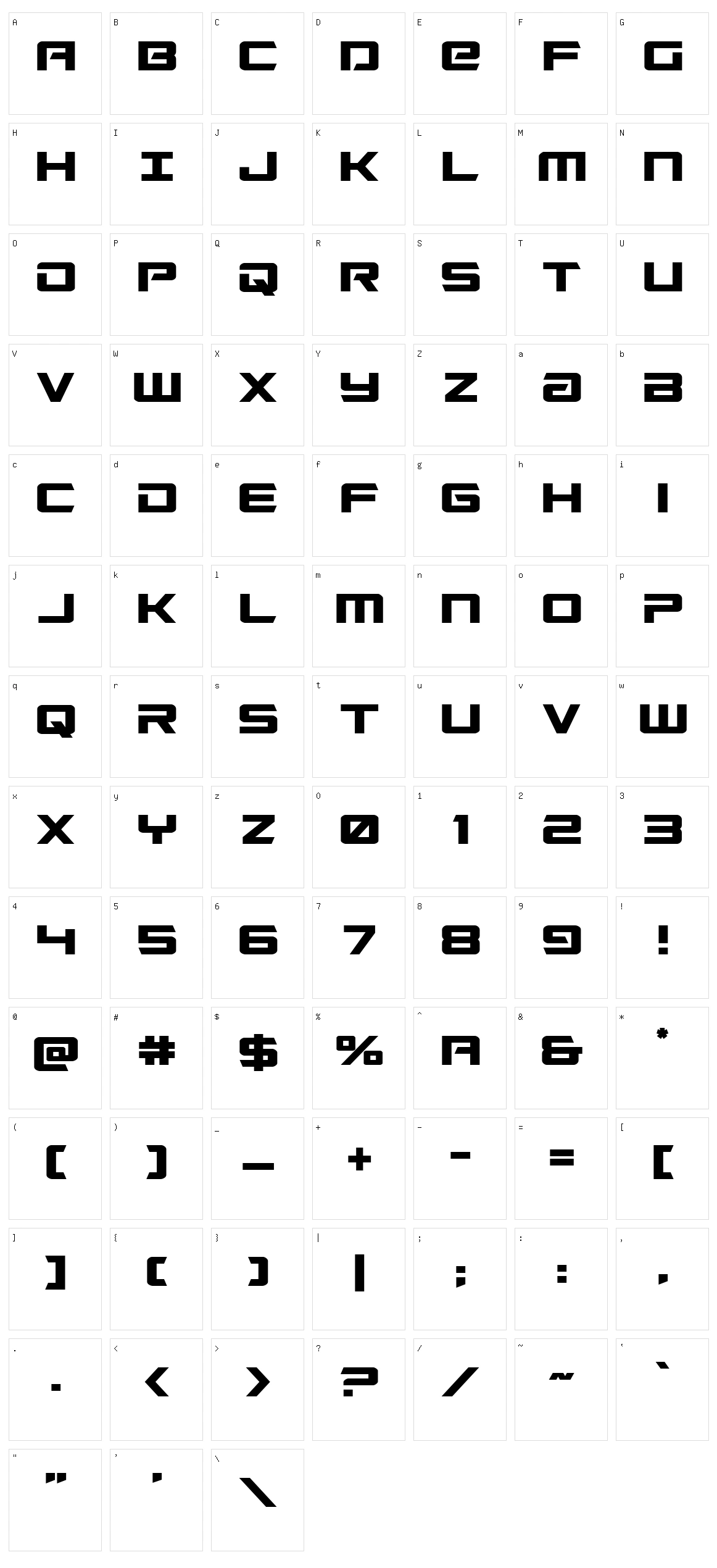
Captain Falcon
This font comes with the following 24 versions: Regular, Italic, Condensed, Condensed Italic, Expanded, Expanded Italic, 3D, 3D Italic, Laser, Laser Italic, Bullet, Bullet Italic, Academy, Academy Italic, Engraved, Engraved Italic, Gradient, Gradient Italic, Halftone, Halftone Italic, Rotalic and Leftalic.